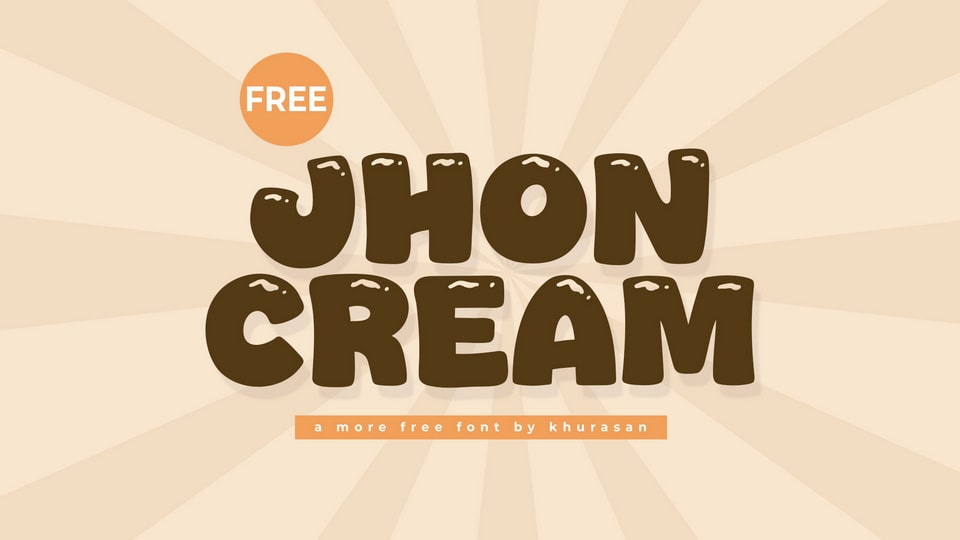
Download Jhon Cream font, a bold yet warm and friendly hand-crafted cartoon typeface designed to bring a sense of charm and approachability to your projects.